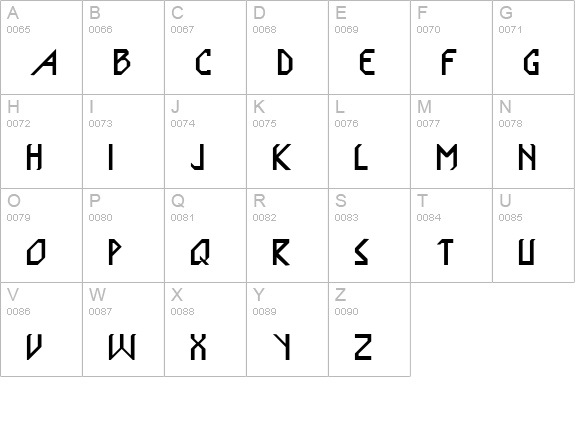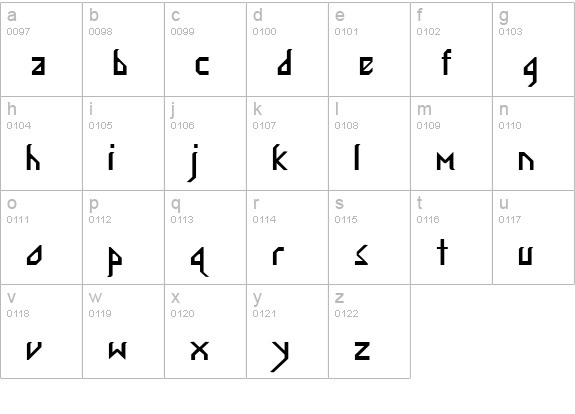
Nordic Regular Font Details
Nordic Regular is the standard, neutral variant in the Nordic typeface family \xE2\x80\x94 well suited to general body text, paragraphs, and standard typographic work.
Nordic Regular font is a modern and stylish typeface that exudes simplicity and elegance. With its clean lines and balanced proportions, this font is perfect for a wide range of design projects, from branding to editorial design. The Nordic Regular font is versatile and easy to read, making it a great choice for both digital and print applications. What sets Nordic Regular font apart is not only its timeless design but also the fact that it is available for free download at FontsMarket.com. This means that you can easily access this high-quality font without any cost, making it a valuable addition to your font library. Whether you are a professional designer or a hobbyist, Nordic Regular font is a must-have for your collection. Download it today and elevate your design projects with this versatile and elegant typeface.